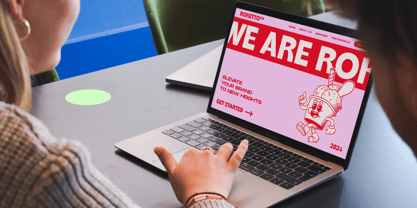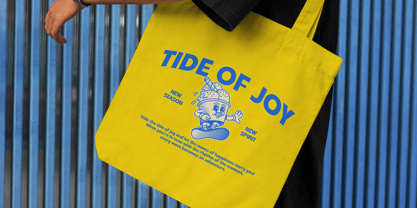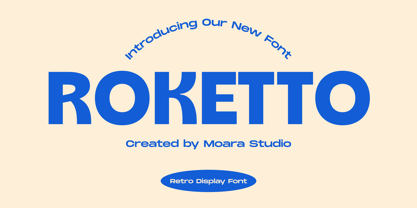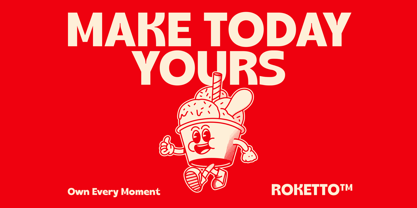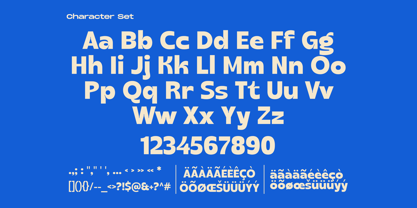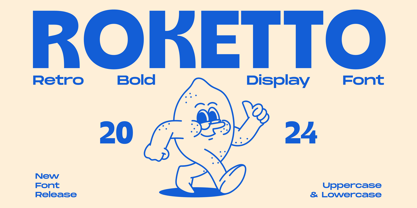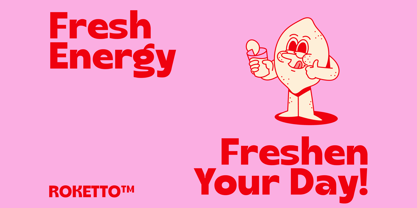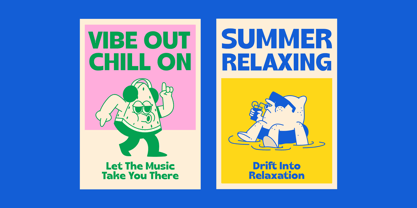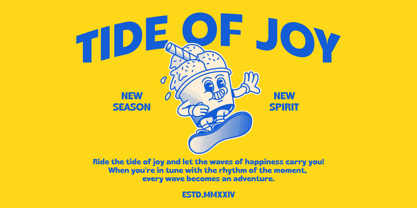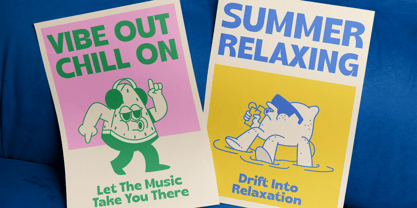
Roketto
The Roketto Font Family was designed by Panca Hasan and published by Coasta. Roketto contains 1 styles. More about this family
Roketto is a bold, retro display font created by Moara Studio. With its strikingly modern lines and nostalgic appeal, Roketto is perfect for standout headlines, posters, and branding that seeks a classic yet contemporary feel. This versatile font adds energy and personality to any design project.